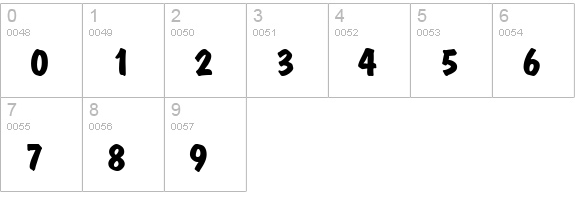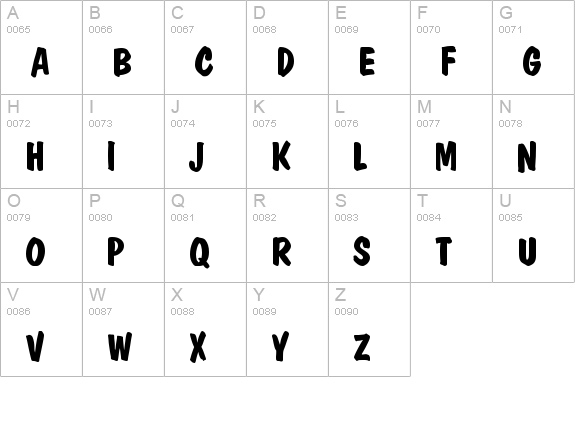
Pedro-Bold is a strong, high-contrast variant in the Pedro typeface family \xE2\x80\x94 well suited to headlines, attention-grabbing titles, and strong calls-to-action.
Pedro-Bold font is a versatile and eye-catching typeface that exudes confidence and boldness. With its strong and striking design, Pedro-Bold is perfect for making a statement in your projects. Whether you are designing a poster, logo, or heading, this font will add a touch of sophistication and style. The best part? Pedro-Bold is available for free download at FontsMarket.com. This means you can easily access this stunning font and elevate your designs without any cost. Don't miss out on the opportunity to enhance your creative projects with the impactful Pedro-Bold font. Download it today and unleash your creativity!